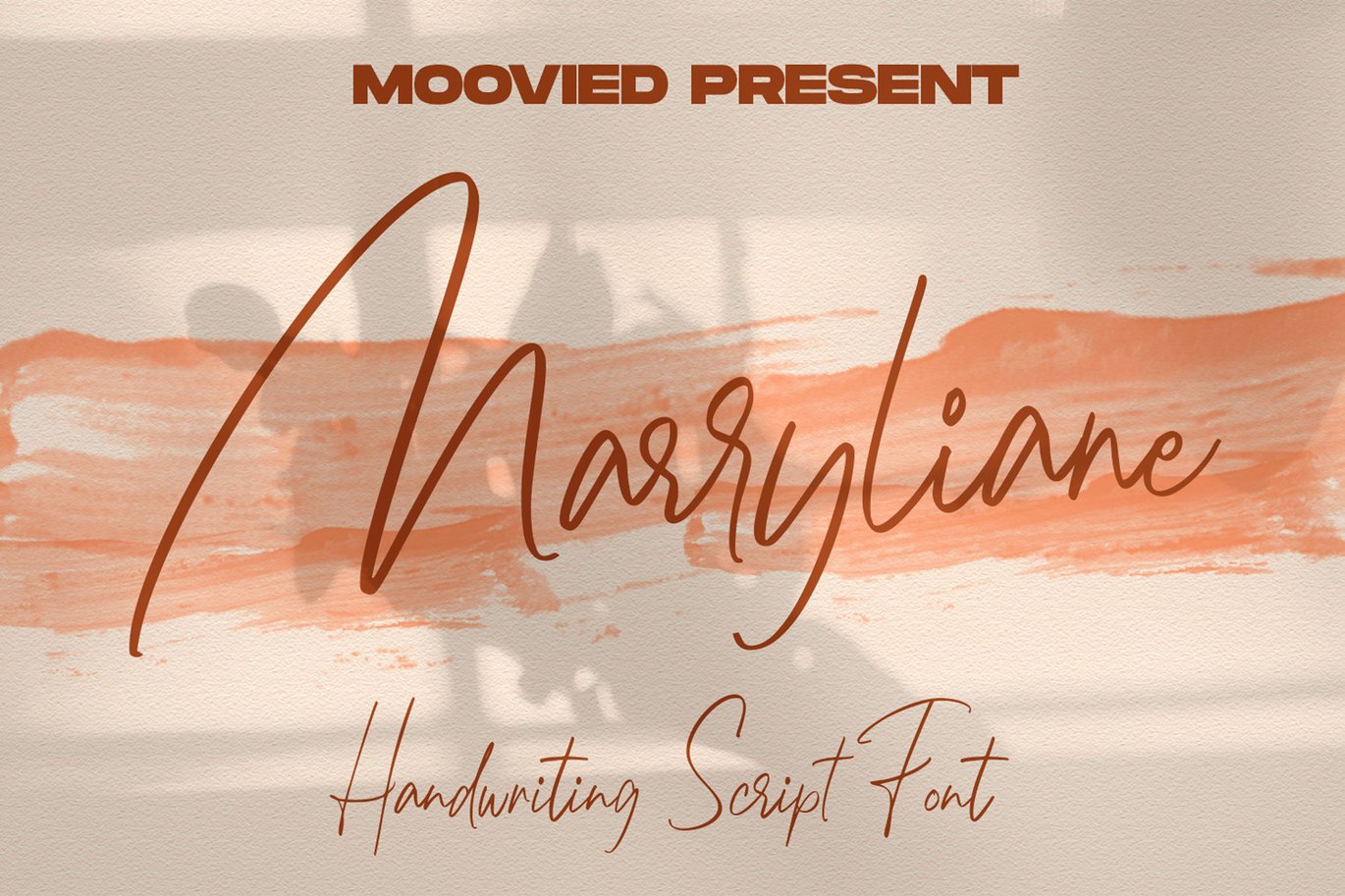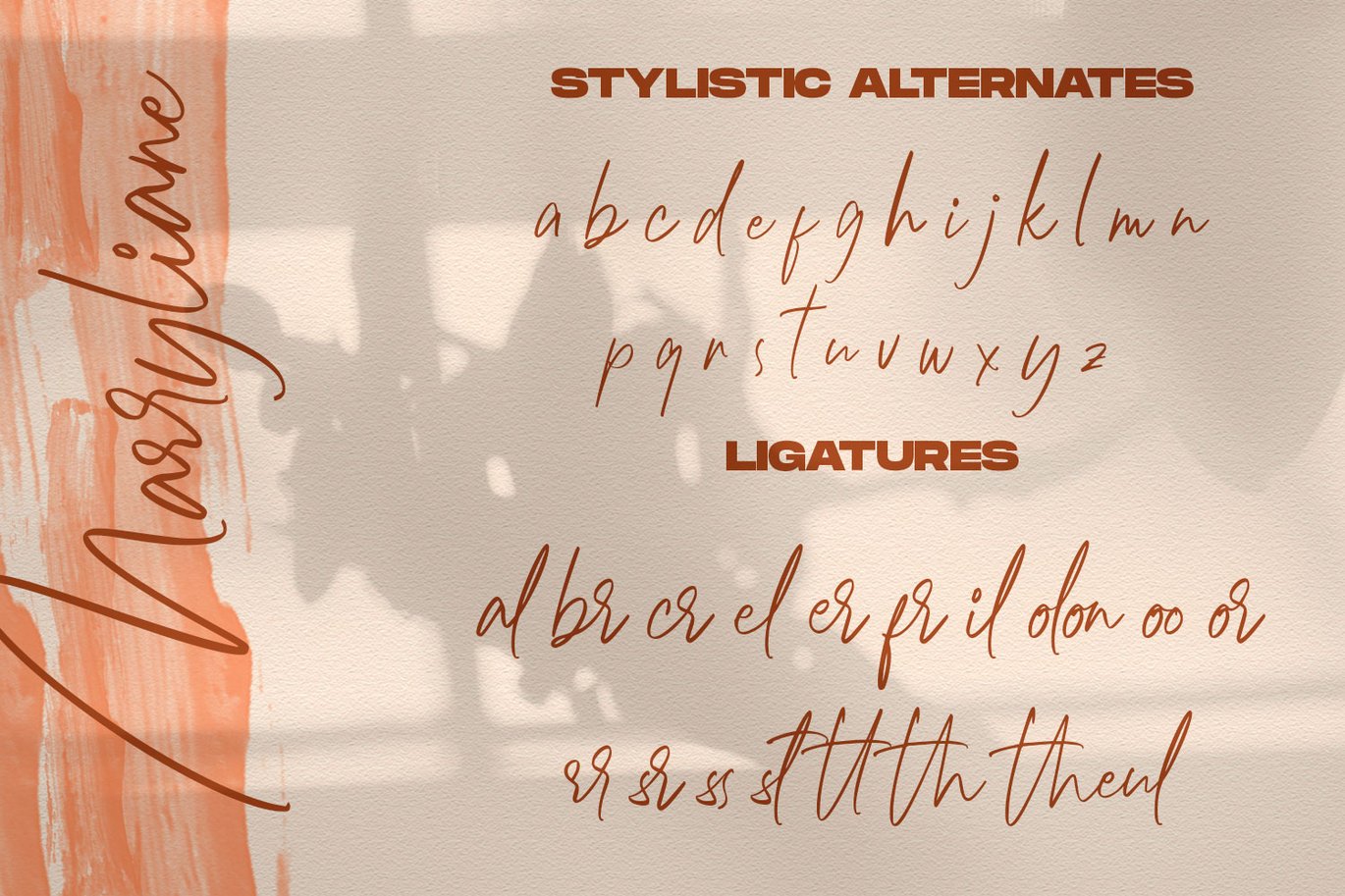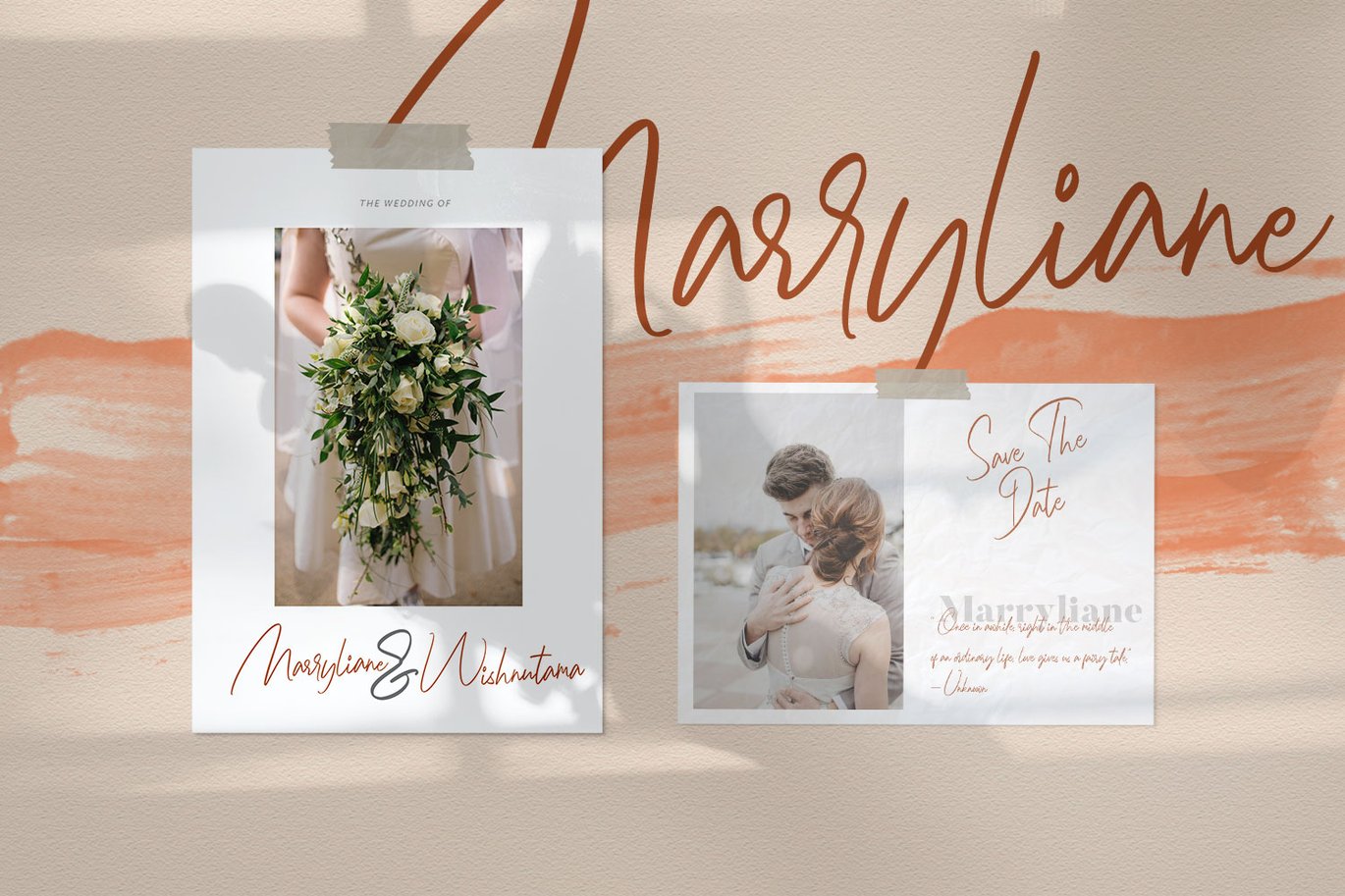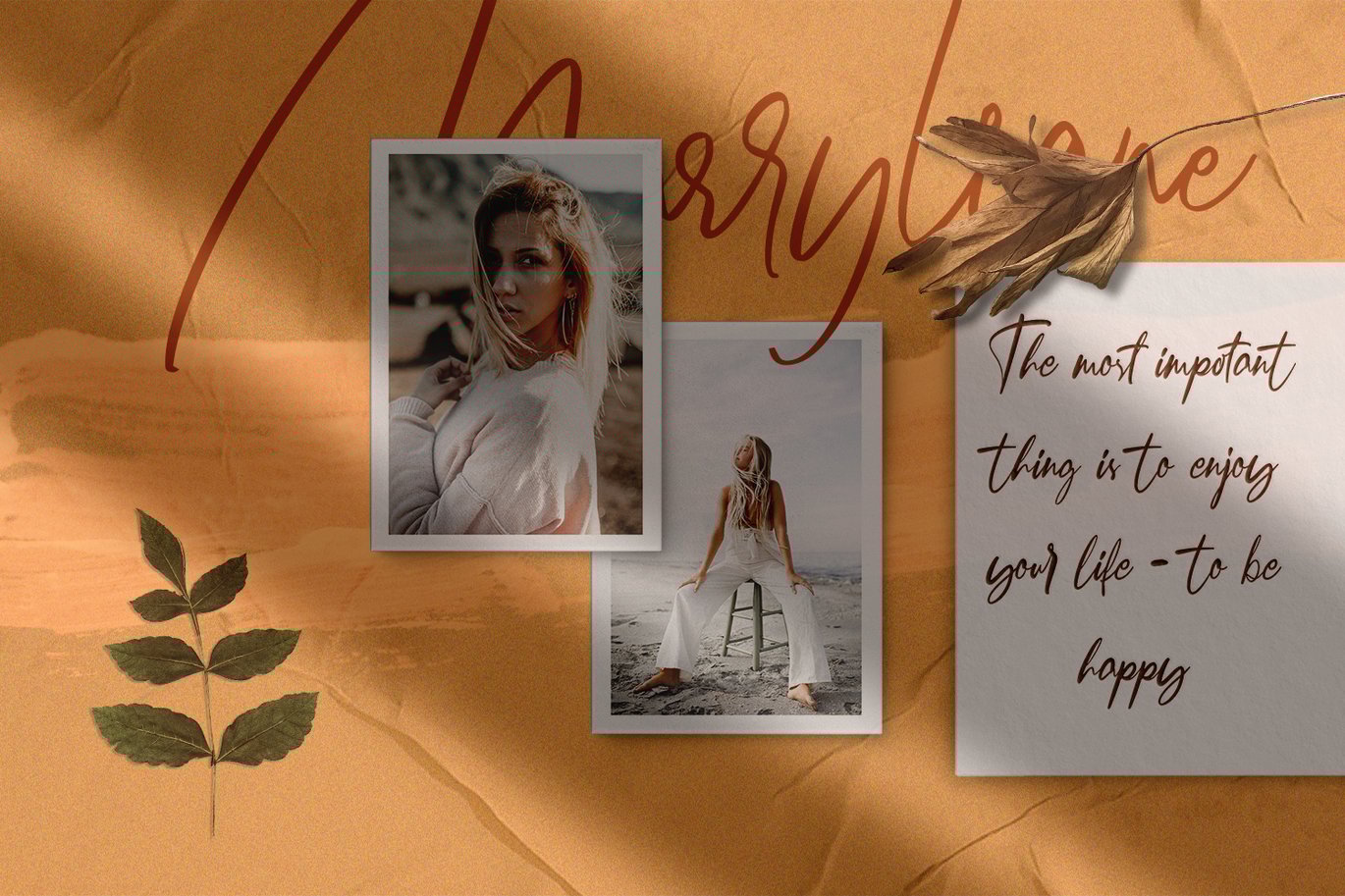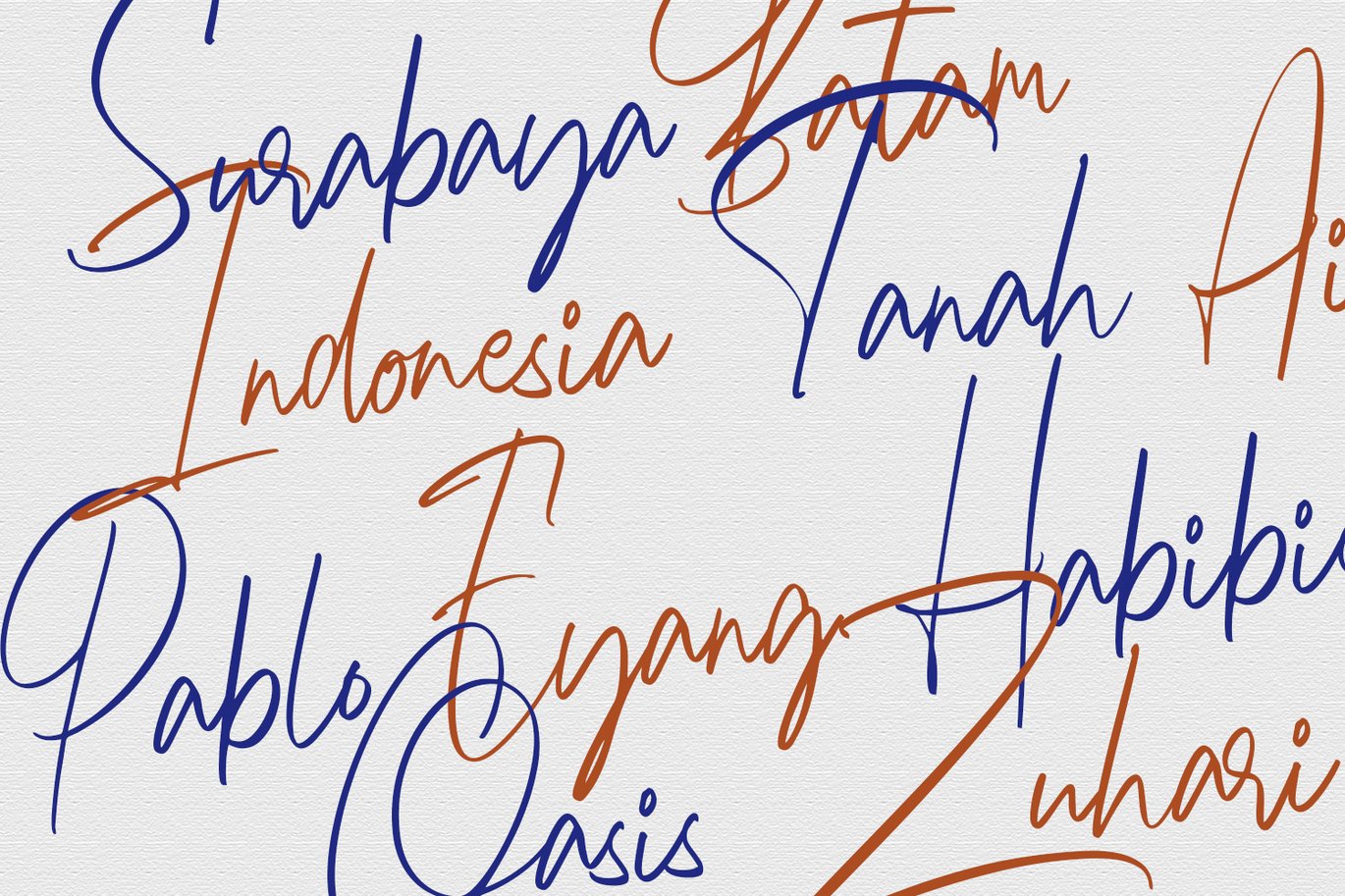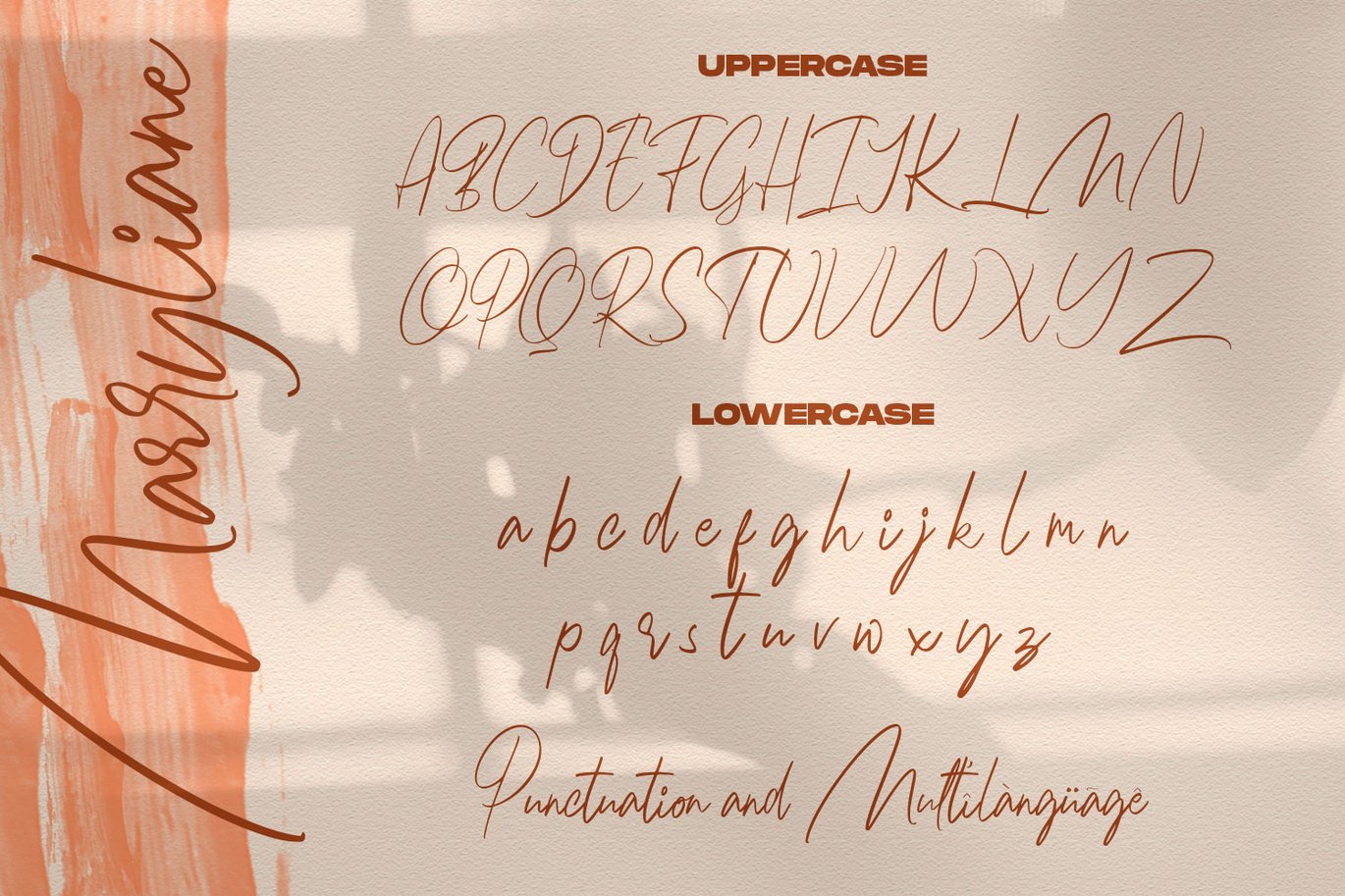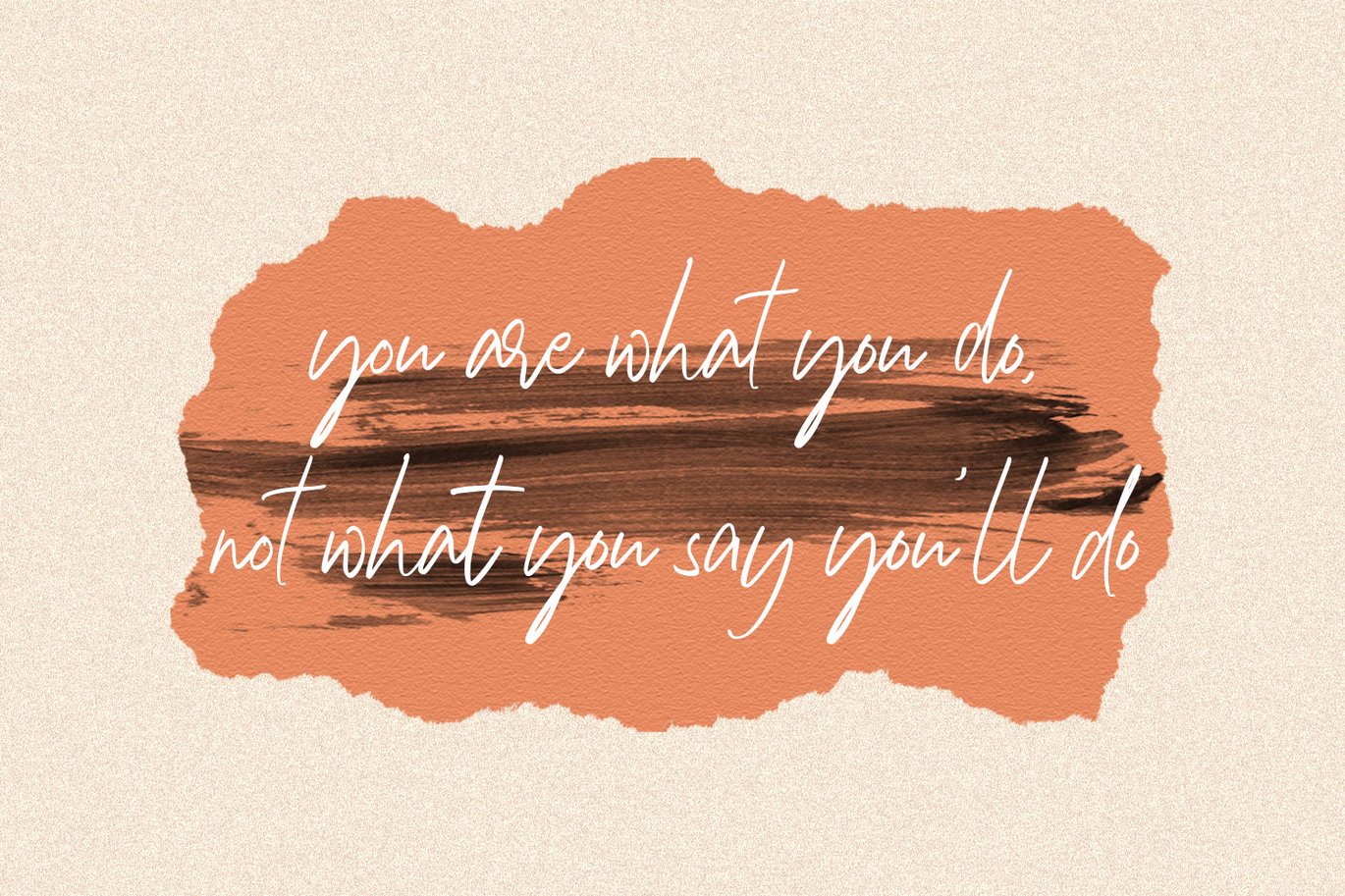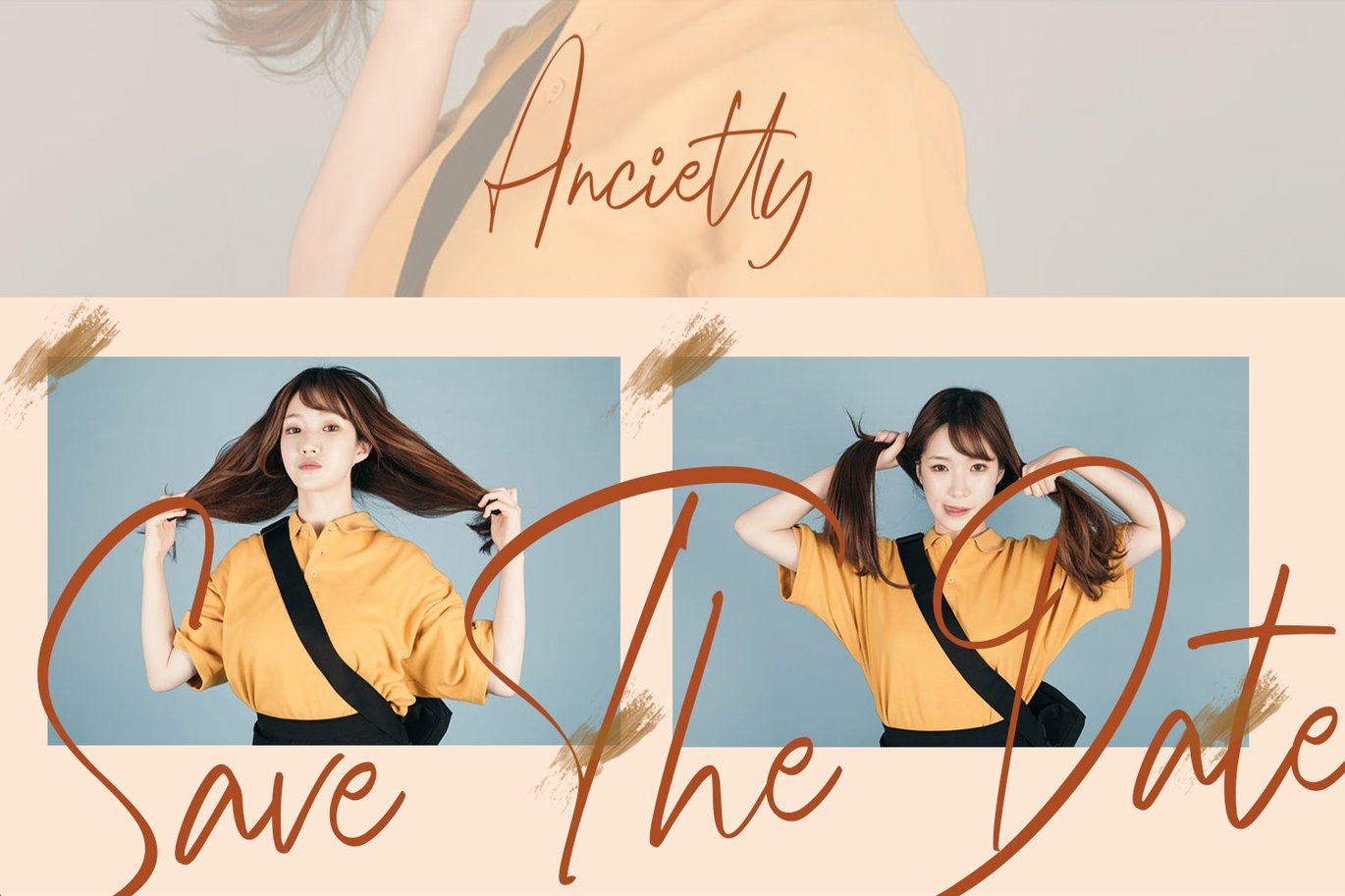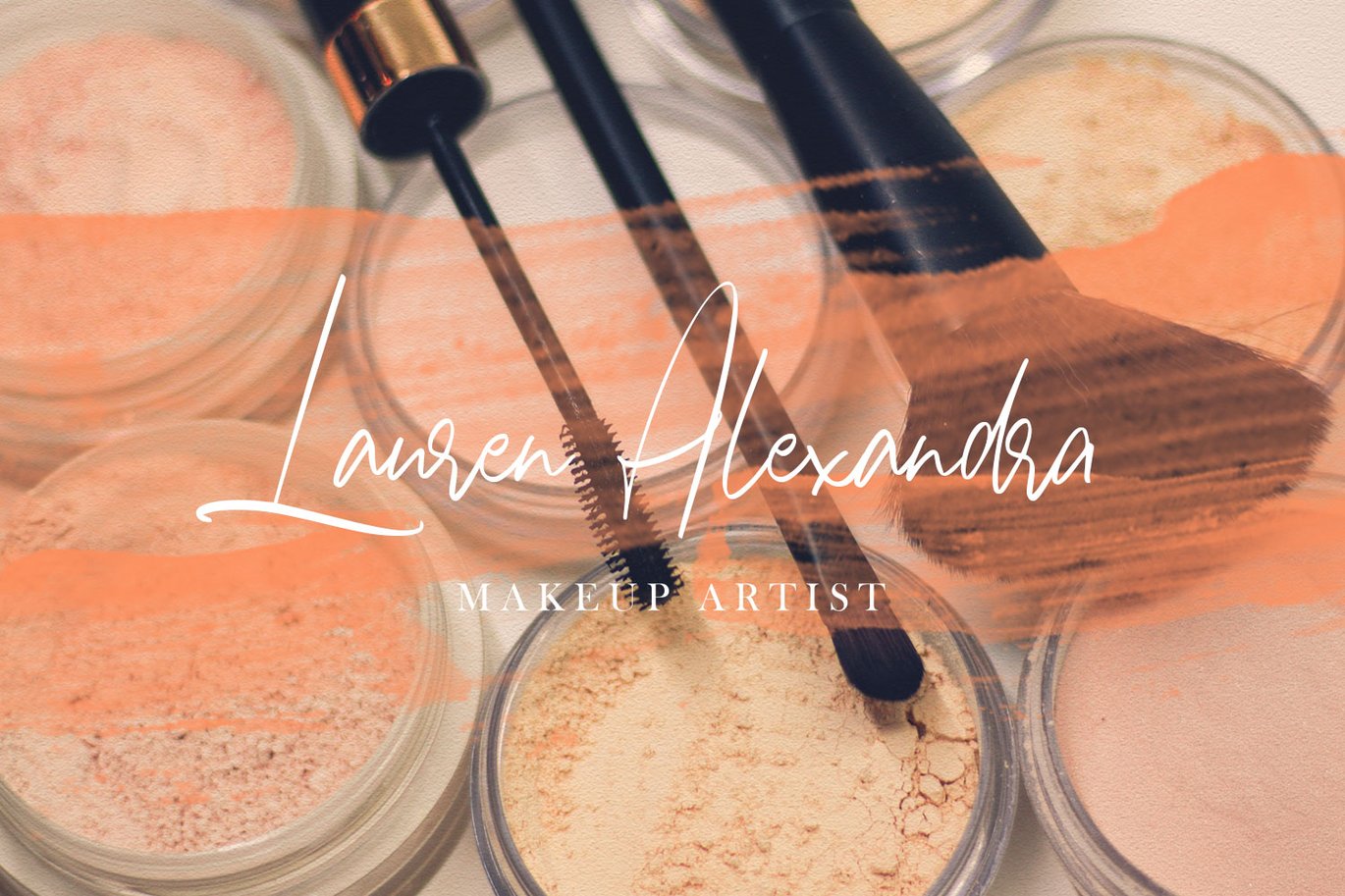
Marryliane Handwriting Font
Marryliane Handwriting Font Signature is a modern signature, It is perfect for blogging, social media, branding, product packaging, wedding invitations, branding, headlines, signage, labels, signature, book covers, posters, quotes and more.
- Basic Latin A-Z and a-z, Alternates a-z, Numbers,
- Ligatures Multilanguage Support